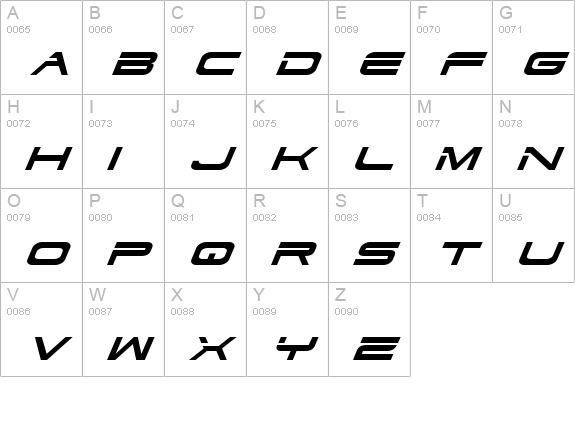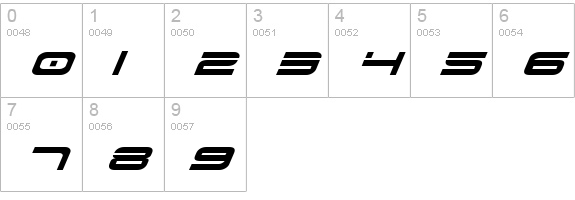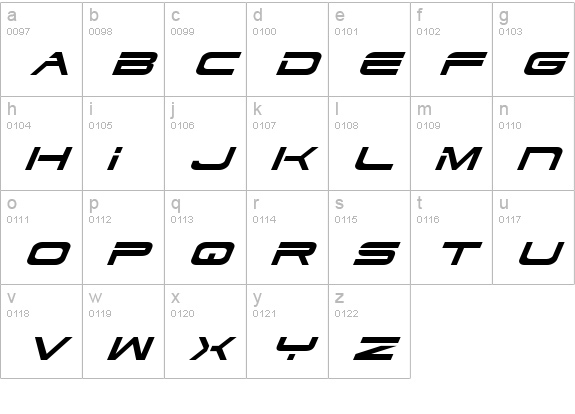
Dodger Italic Font Details
Dodger Italic is a distinctive, italic variant in the Dodger typeface family \xE2\x80\x94 well suited to design and typography projects.
Introducing Dodger Italic font - a sleek and modern typeface that effortlessly combines elegance with a touch of playfulness. This versatile font is perfect for a wide range of design projects, from branding to social media graphics and everything in between. Its slanted, italicized style adds a dynamic and stylish flair to any text, making it stand out in a crowd. Whether you're looking to create eye-catching headlines or add a touch of sophistication to your designs, Dodger Italic has got you covered. And the best part? Dodger Italic font is absolutely free to download at FontsMarket.com. So why wait? Add this stylish font to your collection today and elevate your designs to the next level.